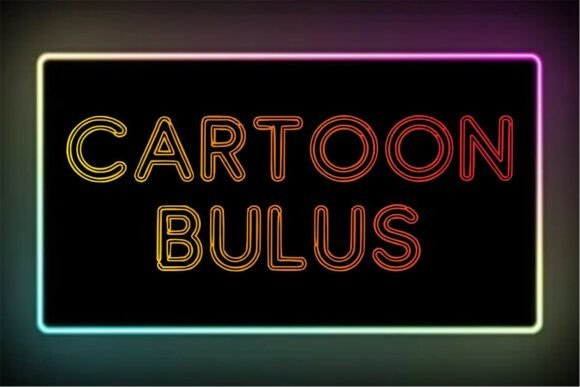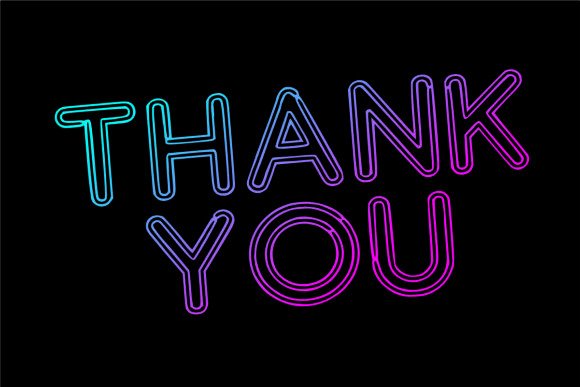
Bulbous Font: A High-Impact Typeface for Attention-Grabbing Designs
In the world of typography, fonts play a crucial role in conveying messages, evoking emotions, and creating visual identities. For designers and crafters looking to make a statement, a bold and eye-catching font is essential. Introducing Bulbous, a high-impact font that embodies the energy of neon lighting with its bold, tubular strokes and multi-line contours. In this article, we’ll explore the unique features of Bulbous and how it can elevate your designs.
The Inspiration Behind Bulbous
Bulbous is a font that draws inspiration from the vibrant and dynamic world of neon lighting. Its bold, tubular strokes and multi-line contours are reminiscent of glowing neon signs that illuminate the night sky. The font’s creator aimed to capture the essence of this energetic and attention-grabbing medium, distilling it into a typographic form that’s both visually striking and legible.
Clean Curves and Geometric Consistency
One of the standout features of Bulbous is its construction using clean curves and geometric consistency. Each character is carefully crafted to create a glowing, dimensional presence without relying on gradients or effects. This approach not only gives the font a sleek and modern look but also ensures that it remains legible, even at large sizes. The clean curves and geometric consistency also make Bulbous a versatile font, suitable for a wide range of applications, from signage and digital graphics to event branding and packaging.
Open-Loop Structure and Layered Form
The open-loop structure and layered form of Bulbous are key to its visual appeal. The font’s open loops create a sense of fluidity and movement, while the layered form adds depth and dimensionality. This unique combination makes Bulbous perfect for large-scale compositions, where visual impact is crucial. Whether you’re designing a billboard, a concert poster, or a social media graphic, Bulbous is sure to grab attention and leave a lasting impression.
Sculptural Quality and Precision Linework
The stylized precision of the linework in Bulbous gives the type a sculptural quality, making it ideal for work that demands attention. The font’s bold, tubular strokes and multi-line contours create a three-dimensional effect, as if the letters are protruding from the page. This level of precision and attention to detail makes Bulbous perfect for applications where visual impact is paramount, such as signage, event branding, and advertising.
Applications for Bulbous
Bulbous is a versatile font with a wide range of applications. Its bold, eye-catching design makes it perfect for:
- Signage: Bulbous is ideal for creating attention-grabbing signs that need to stand out in a crowded environment.
- Digital graphics: The font’s clean curves and geometric consistency make it perfect for digital graphics, such as social media posts, website headers, and email newsletters.
- Event branding: Bulbous is a great choice for event branding, including concert posters, festival logos, and conference materials.
- Packaging: The font’s bold, sculptural quality makes it suitable for packaging design, particularly for products that require a strong visual presence.
Bulbous is a high-impact font that delivers clarity, structure, and visual tension in a single expressive form. Its bold, tubular strokes and multi-line contours evoke the energy of neon lighting, making it perfect for attention-grabbing designs. With its clean curves, geometric consistency, and sculptural quality, Bulbous is a versatile font that’s suitable for a wide range of applications. Whether you’re a designer, crafter, or simply someone looking to make a statement, Bulbous is an excellent choice for any project that demands attention.